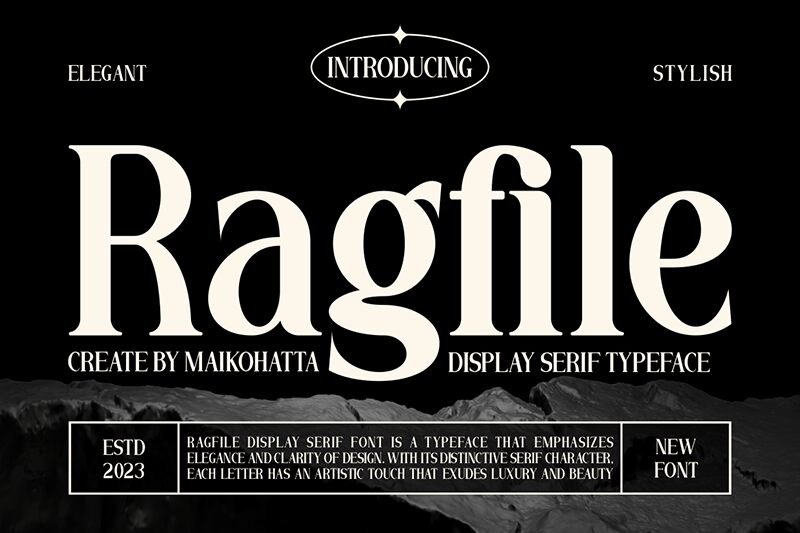
Ragfile
Ragfile font by Gilang Ternadho features condensed serif letters that have an elegant and modern appearance. The refined curves of the letters with their classical influences create a sophisticated look that is up to today’s design needs standards. Those letters with their strong presence give a fresh touch of professionalism and authority to any project they are part of.